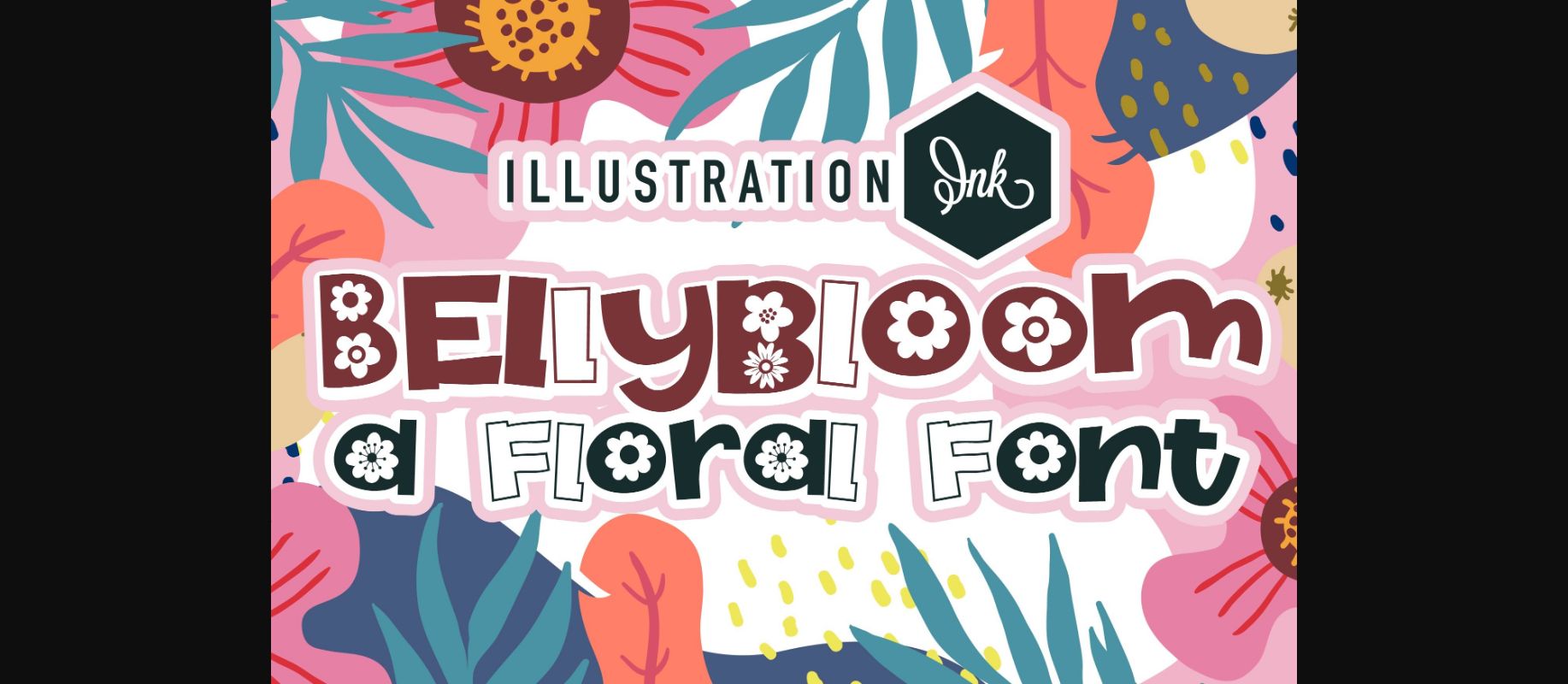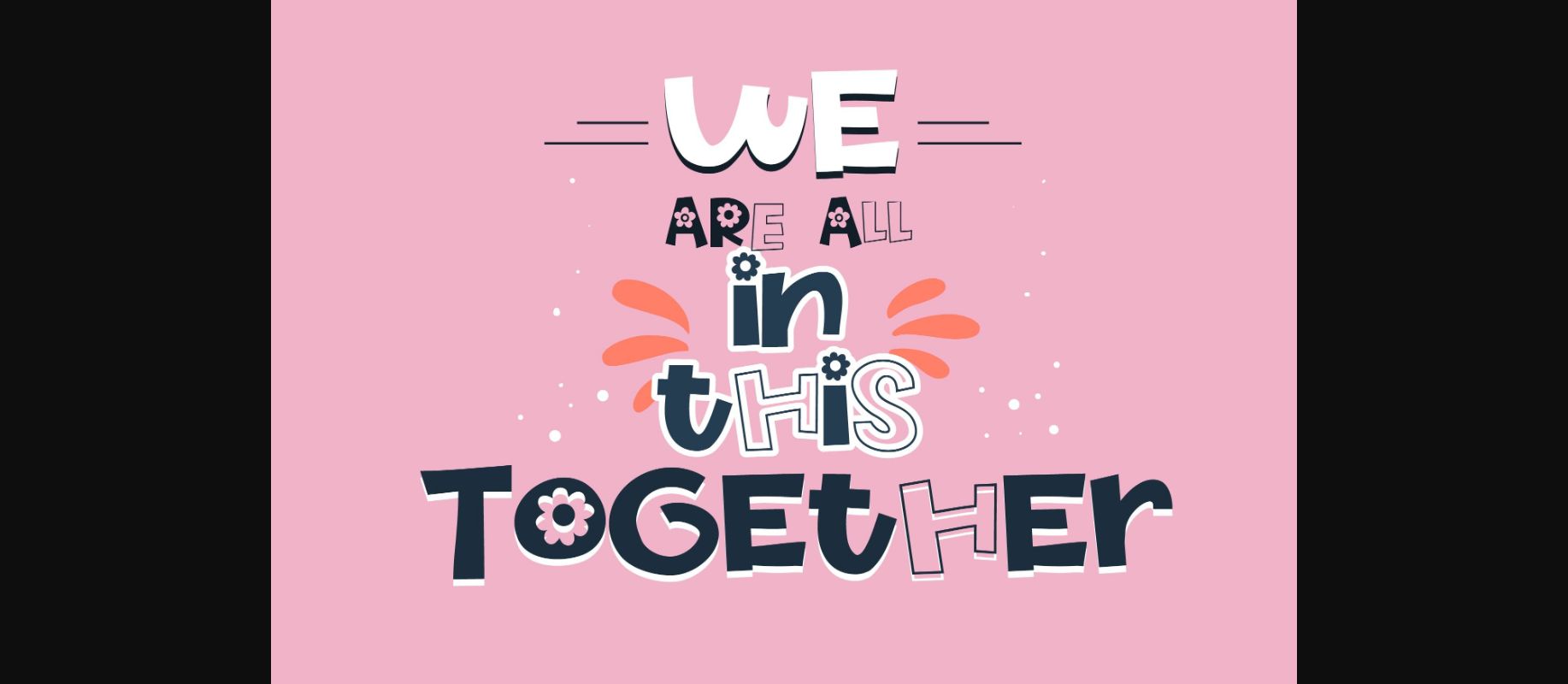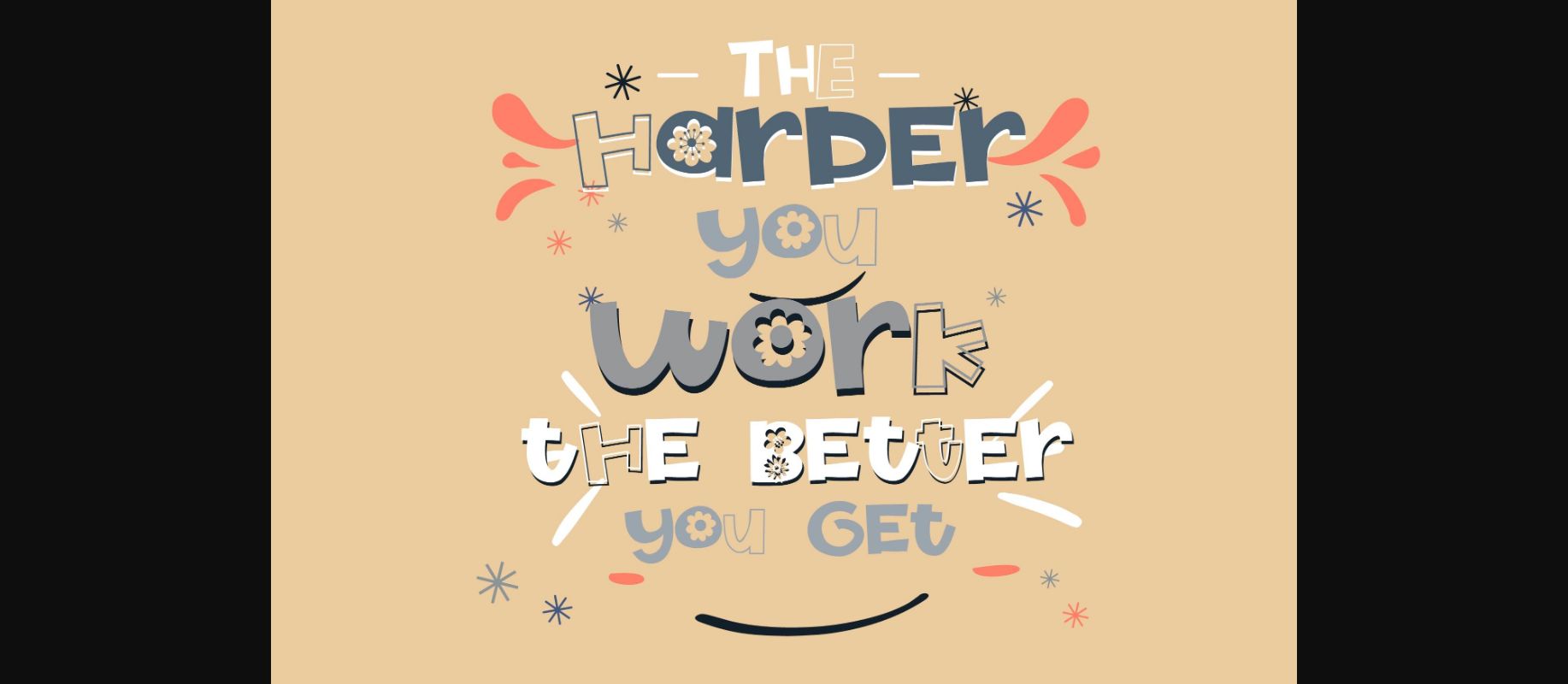
About Bellybloom Font
This casual, hand-crafted sans serif sports a few floral blooms.
A hand-crafted font is a font that is designed to feel unique and crafty. It is often used for invitations, greeting cards, and other items. Hand-crafted fonts are typically informal and they can be used for a variety of purposes.
It’s hand-crafted, which means that each letter was individually drawn with care.
It has a unique, organic look that is sure to stand out.
It’s perfect for a variety of projects, from logos and websites to everyday text.
A hand-crafted font is a font that is designed to feel unique and crafty. It is often used for invitations, greeting cards, and other items. Hand-crafted fonts are typically informal and they can be used for a variety of purposes.
It’s hand-crafted, which means that each letter was individually drawn with care.
It has a unique, organic look that is sure to stand out.
It’s perfect for a variety of projects, from logos and websites to everyday text.